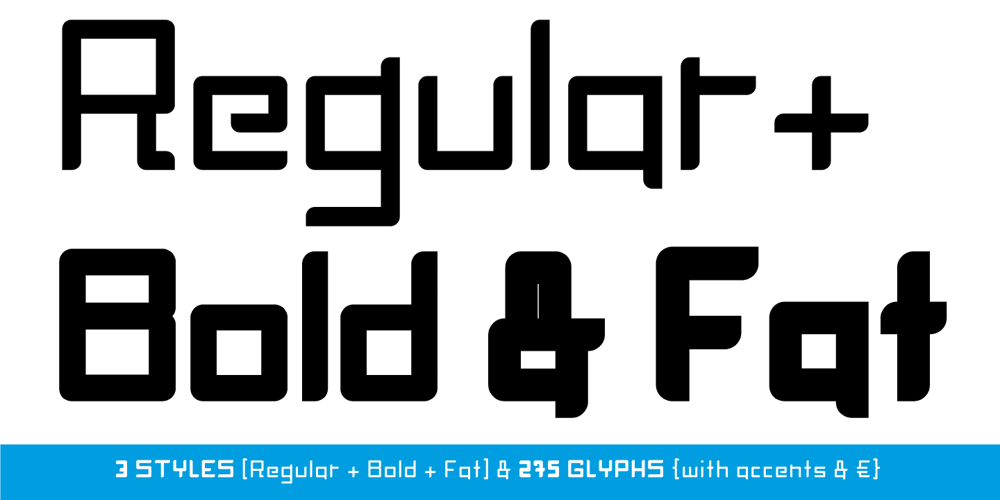
Block Head Font Family was designed by Manuel Viergutz and published by TypoGraphicDesign. Block Head contains 3 styles and family package options. The half-round and smooth character of the typeface looks sporty and fresh. The sans-serif monoline letter-forms looks very modern, clean, fresh and fancy. From slim (regular) athletes till heavy (fat) bodybuilder or football player.